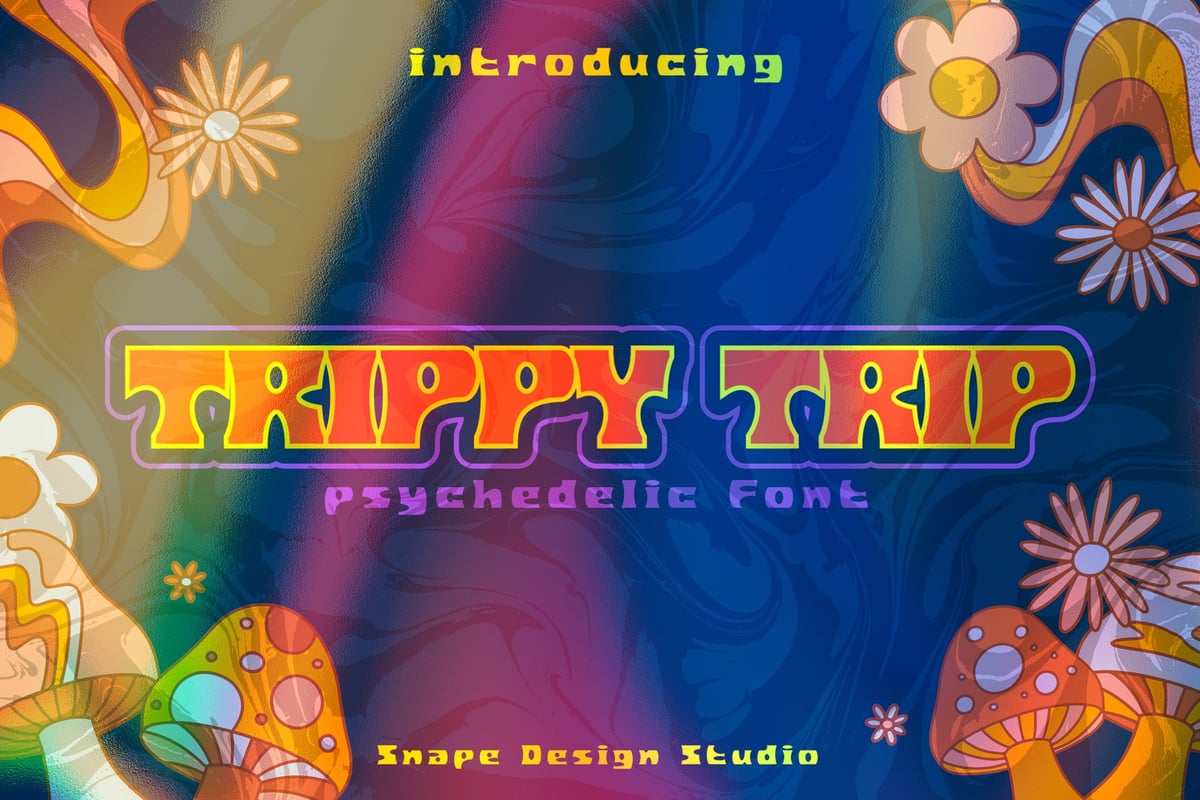
Trippy Trip - Psychedelic Font
Transport your designs back to the groovy era with this mind-bending psychedelic typeface. Trippy Trip is a psychedelic font that captures the essence of vintage 1960s music culture. Drawing inspiration from classic album covers and concert posters from legendary music bands of the era, this typeface brings a fun, groovy, and unmistakably retro vibe to any project. The classic psychedelic aesthetic makes this font perfect for a wide range of creative applications including movies, documentaries,...